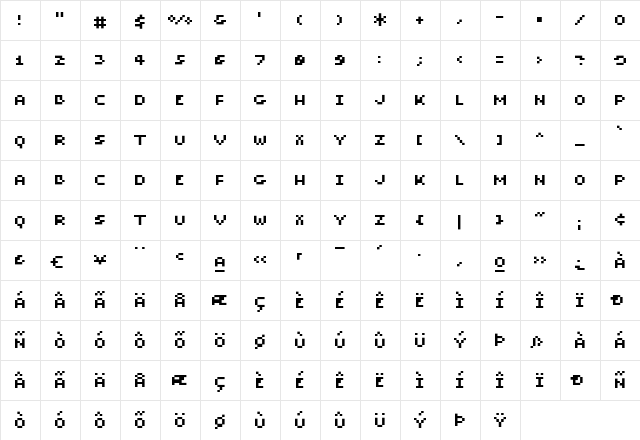
Microscopic Regular
Design Context for Microscopic Typeface
Microscopic takes a measured approach to typography — its balanced proportions and neutral character make it a reliable workhorse for both digital and print work.